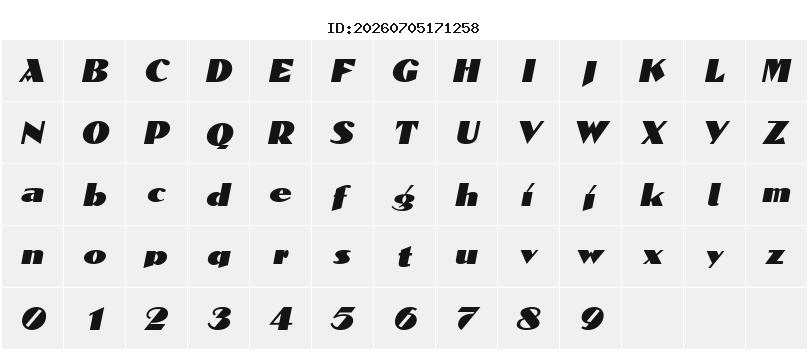
Domenic Preview
• Font Name: Domenic
• Font Style: Oblique
• Font ID: SWFTE:Domenic Oblique
• Full Font Name: Domenic Oblique
About Domenic.ttf
Domenic.ttf is a modern, elegant sans-serif font designed for ultimate readability and visual harmony. Perfect for branding, headlines, web design, and print materials.